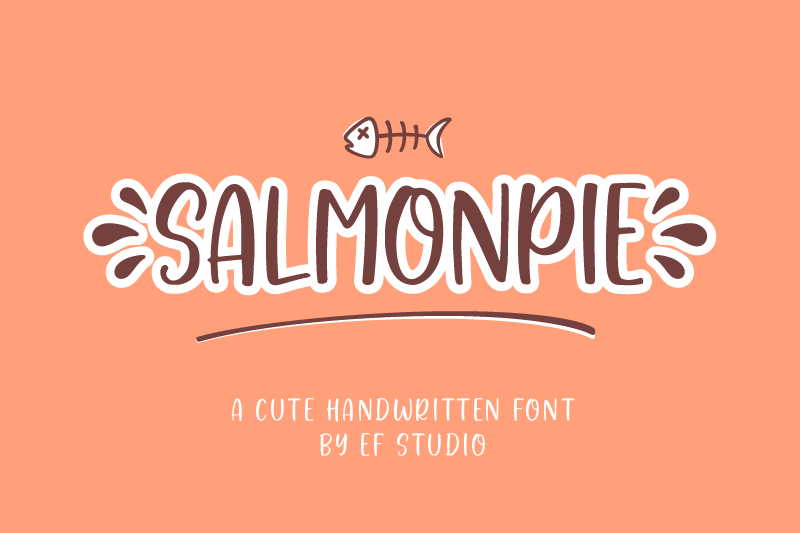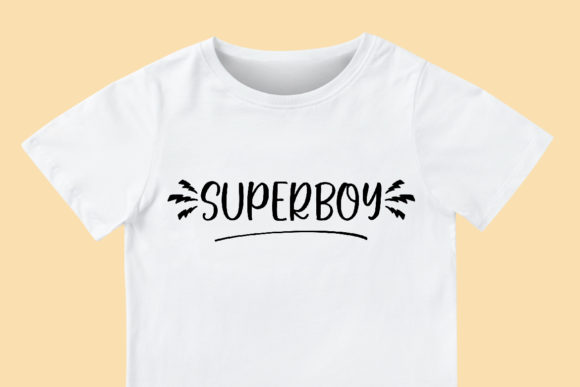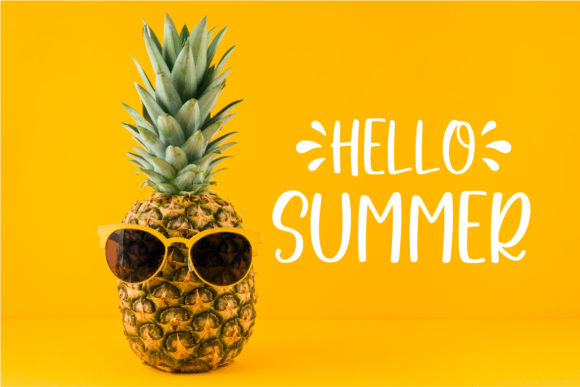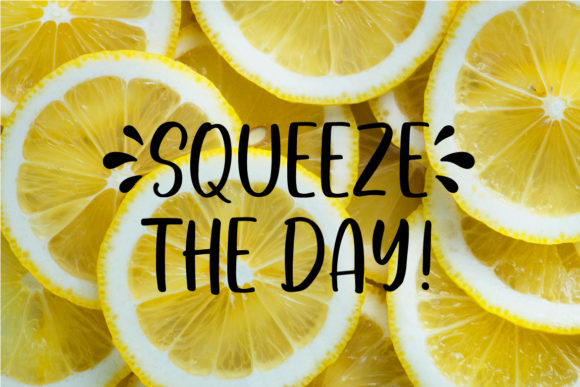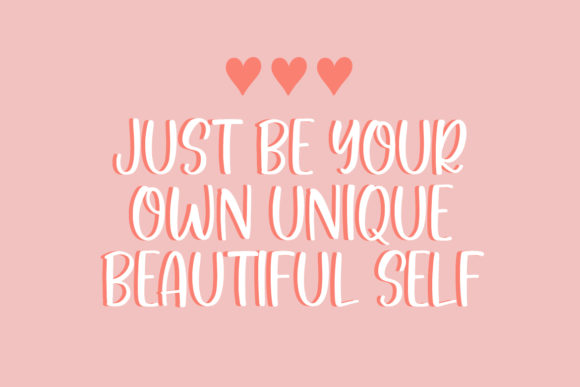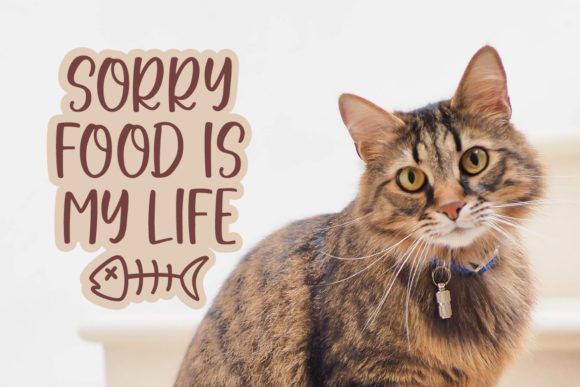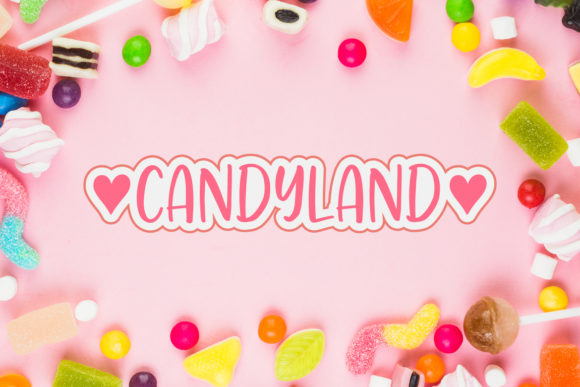
Salmonpie
Salmonpie is a charming and quirky handwritten font that can add a personalized touch to your design projects. Its clean design and playful style make it a perfect fit for various design projects.
This font is ideal for creating logos, branding, social media posts, invitations, and DIY projects. Its versatility allows it to be used in various industries like fashion, beauty, and lifestyle.
Created by Ef Studio, Salmonpie is a unique font that can make your designs stand out. It has a friendly and approachable aesthetic that can help you convey your message effectively.